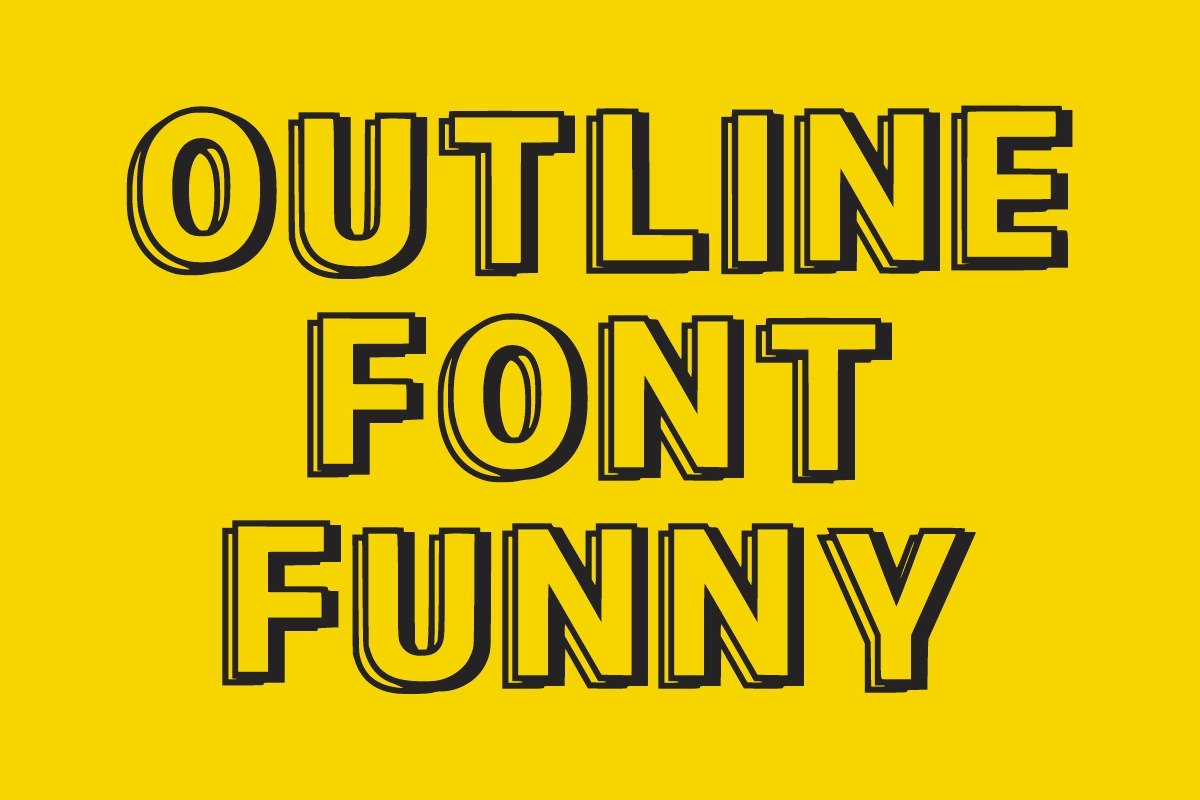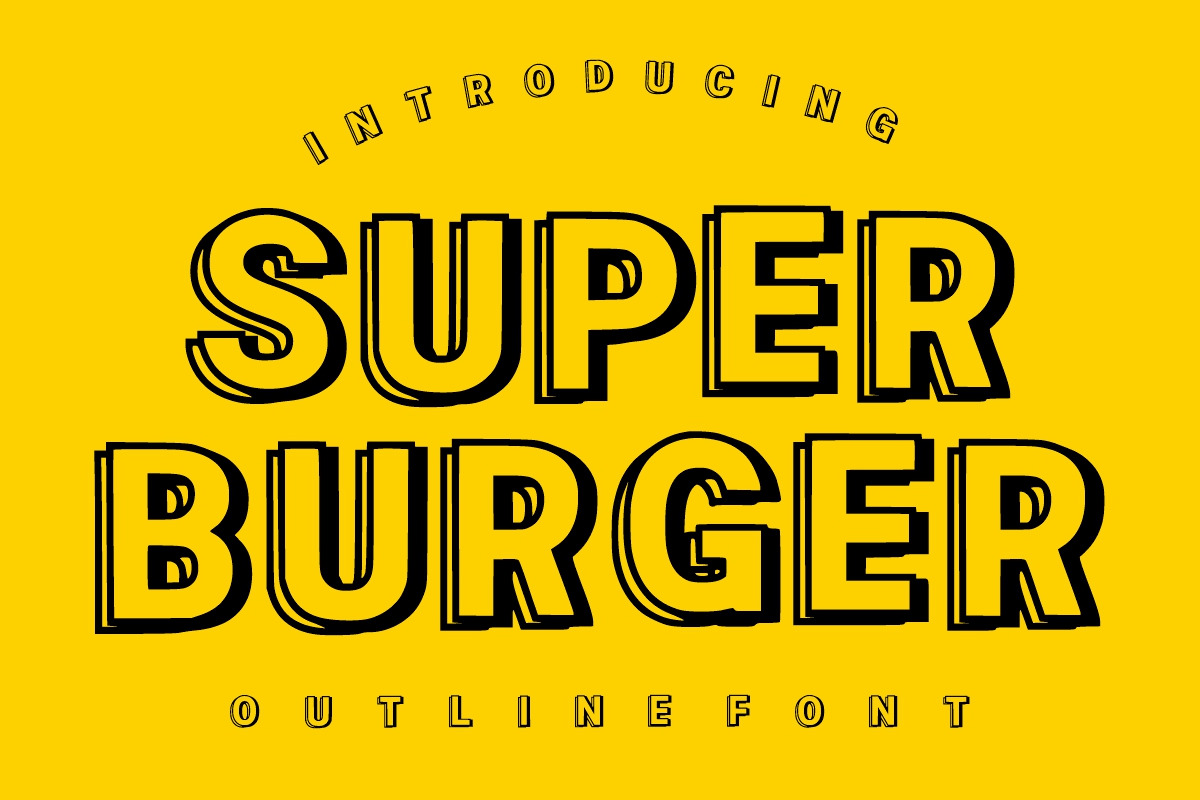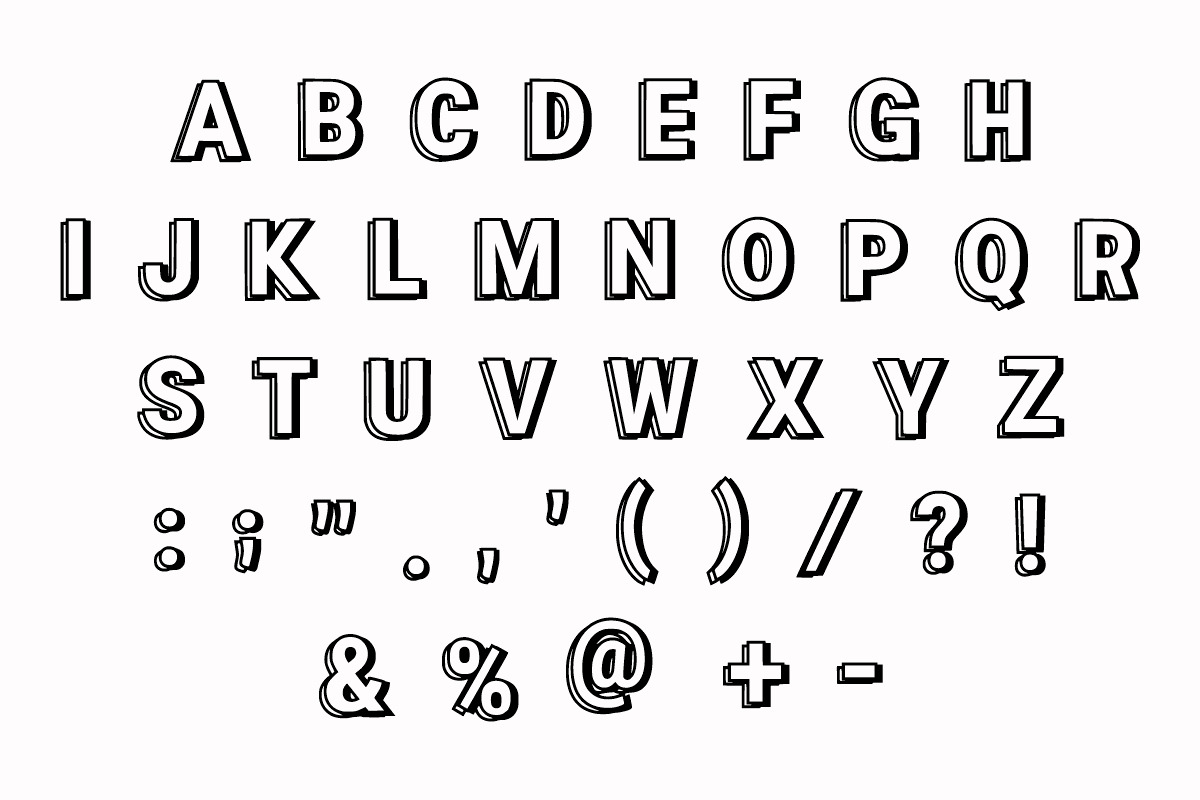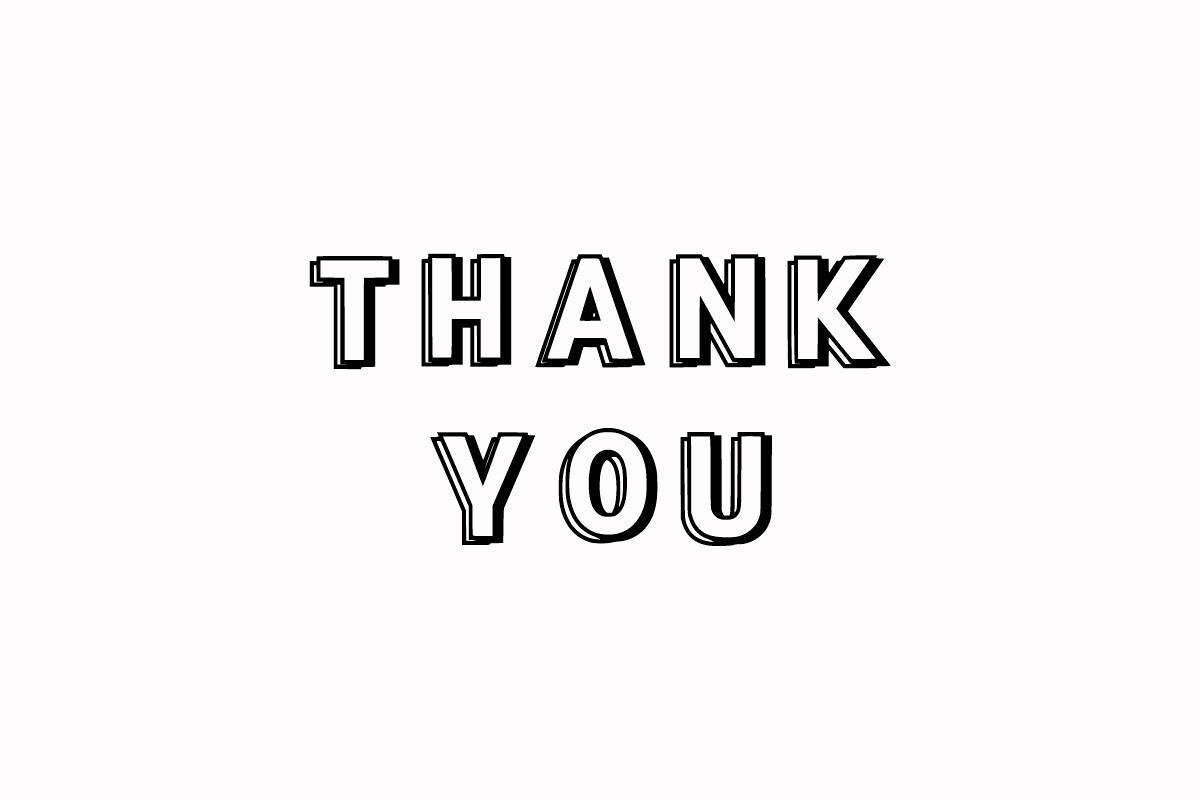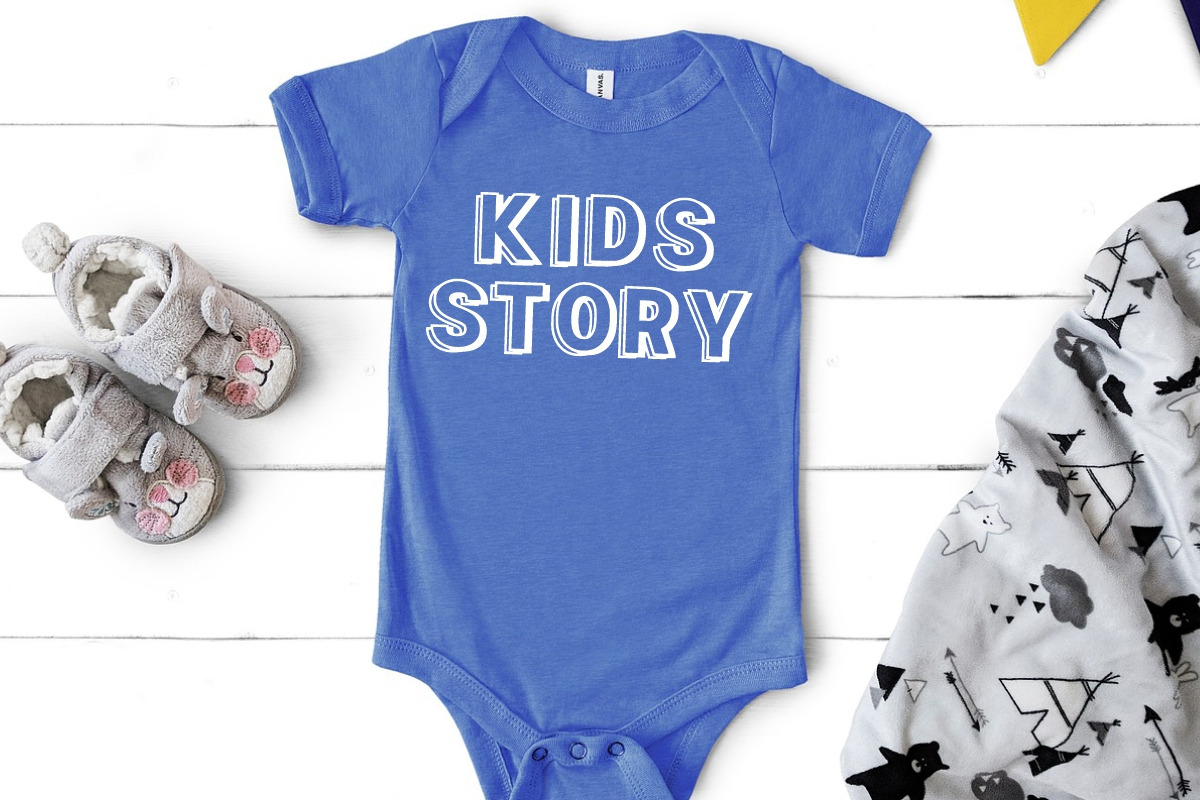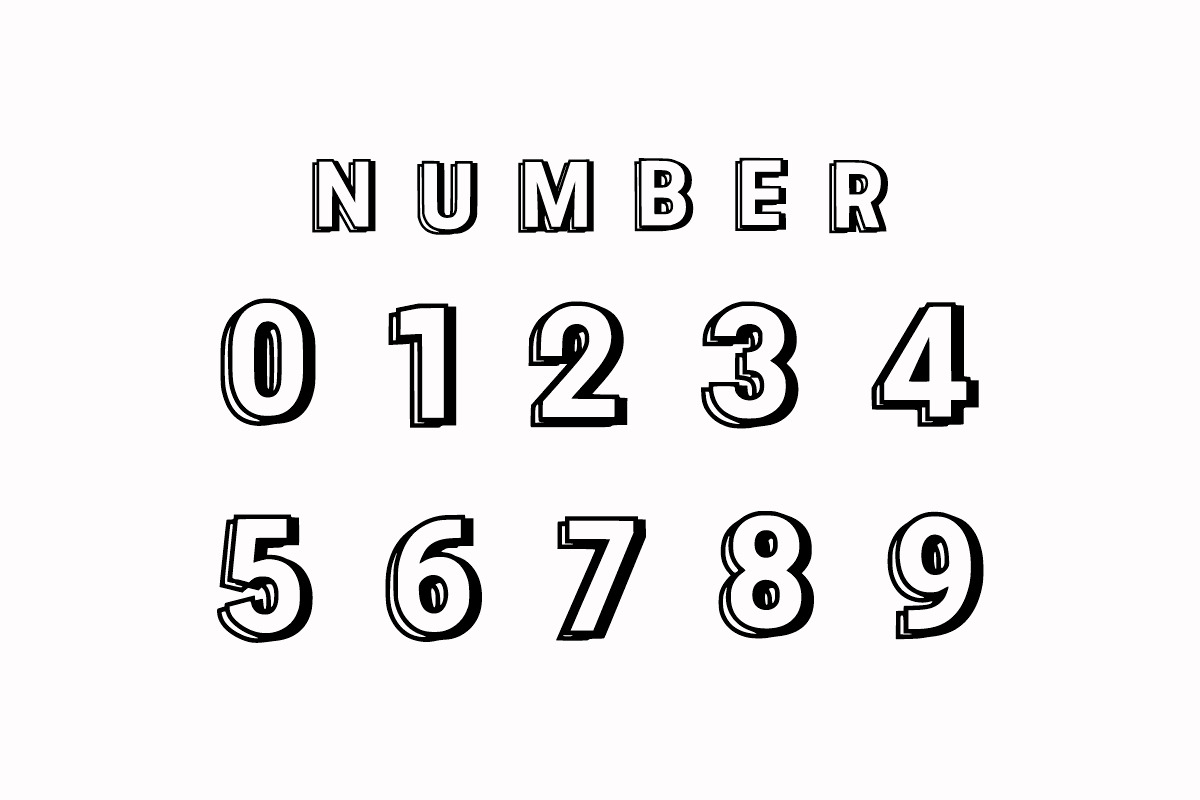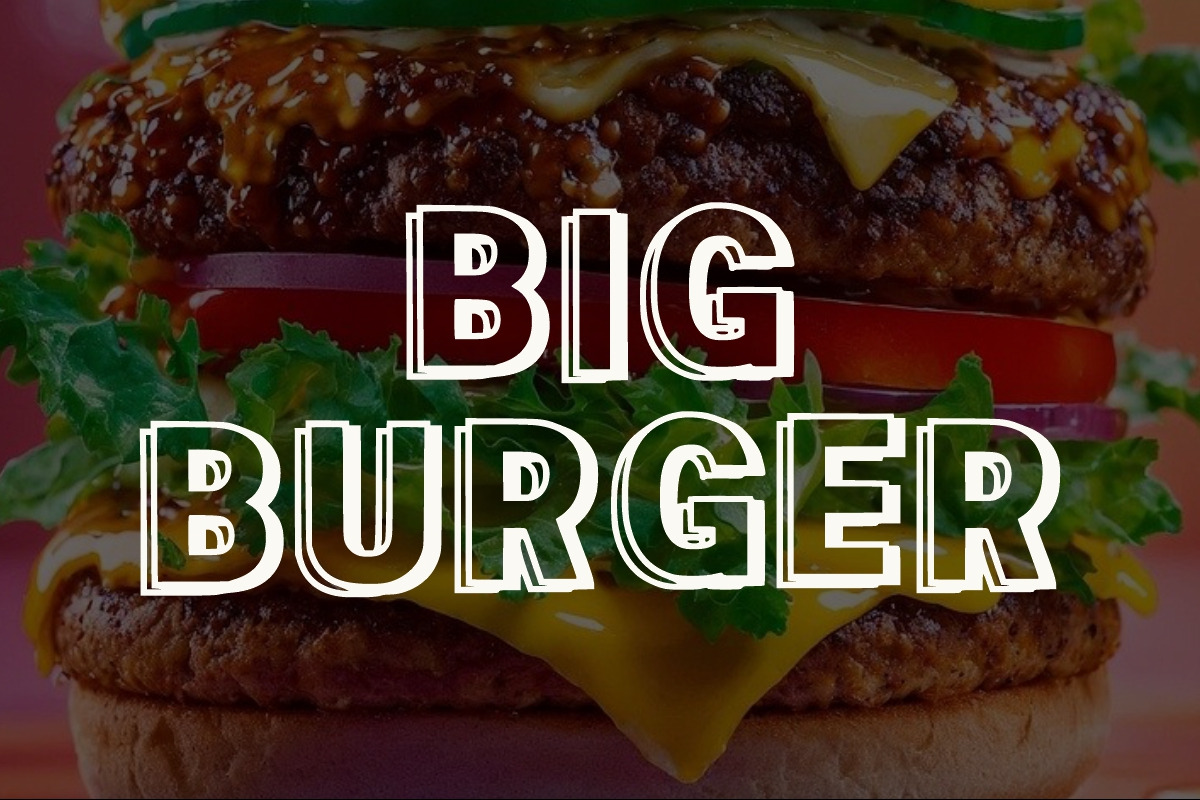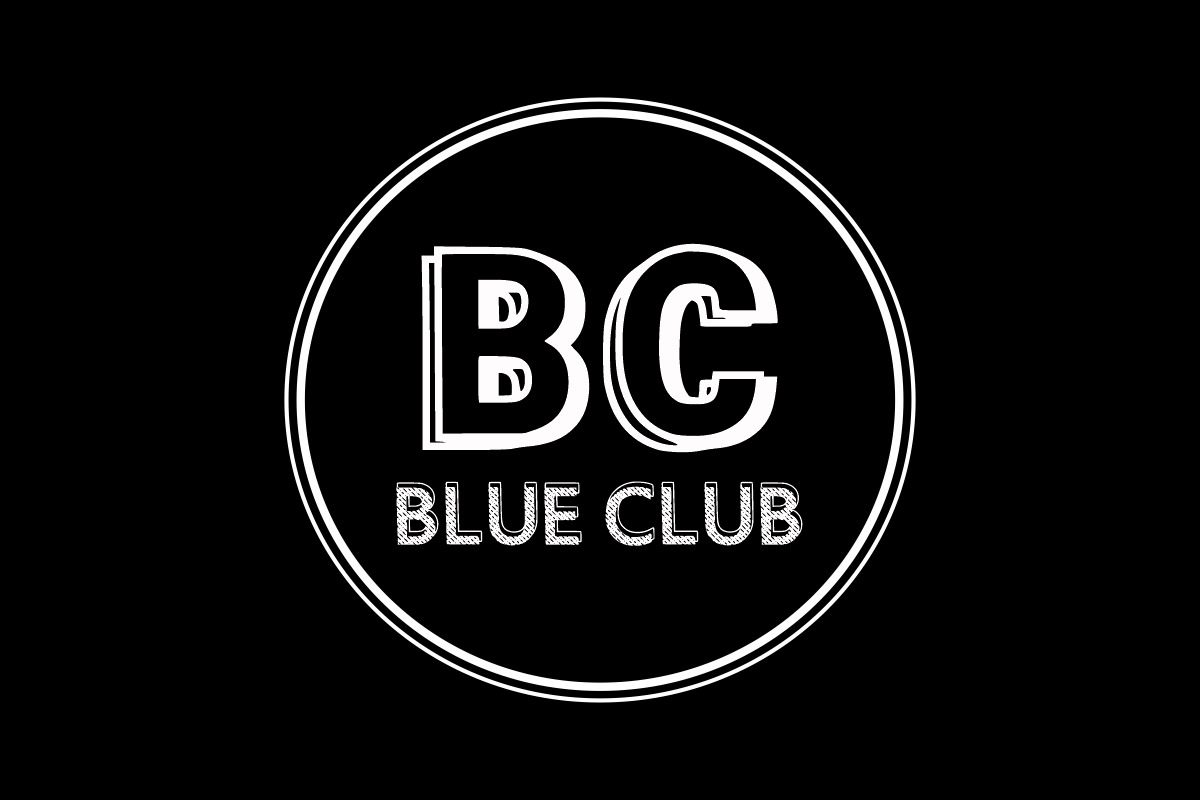
SUPER BURGER DOUBLE OUTLINE FONT
Super Burger is a outline and bold display font. It features a dynamic effect and a unique charm. It is perfect for headlines, sporting events, automotive posters, school posters, text effects, templates, logos, or monogrammed designs.